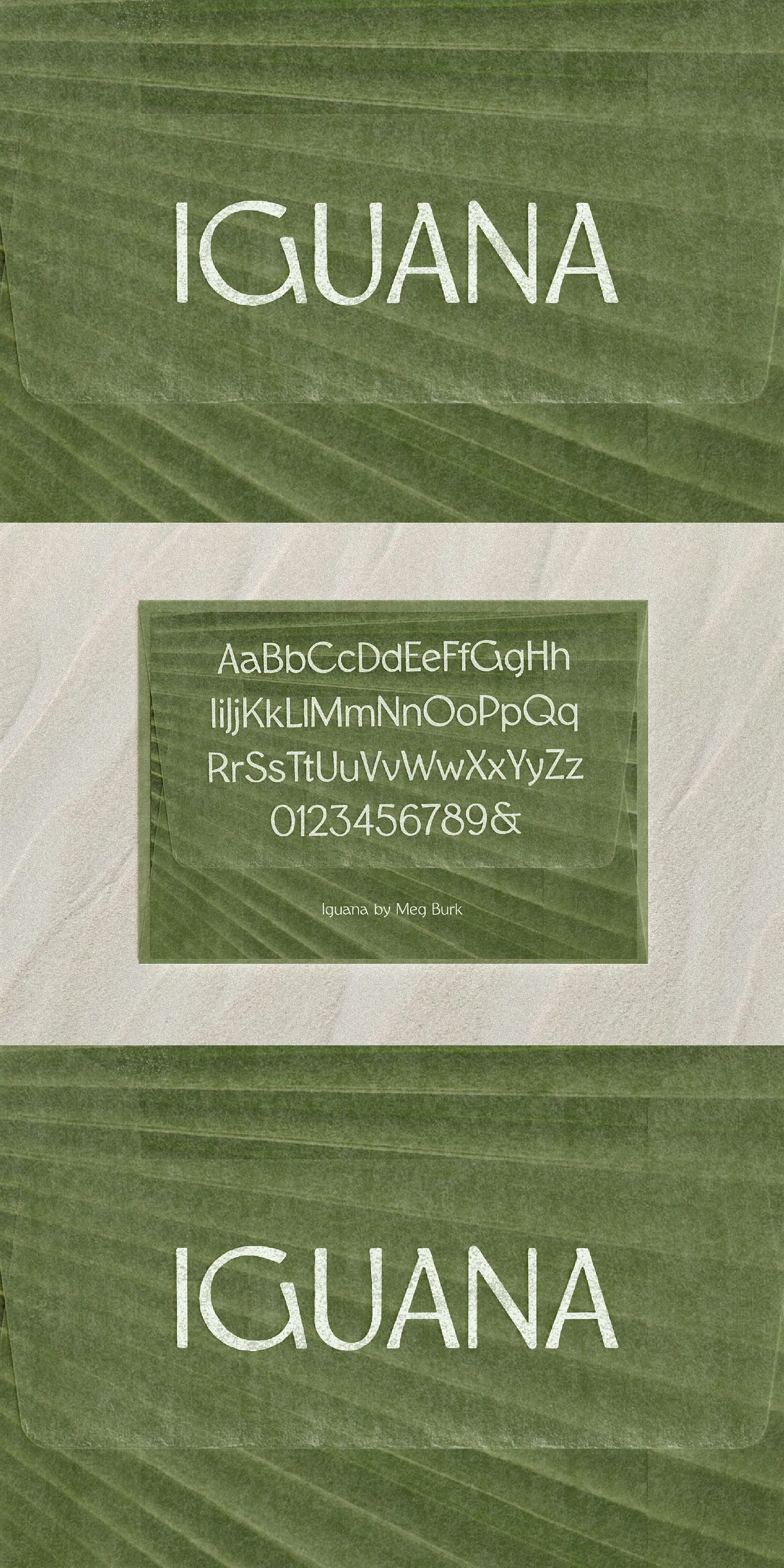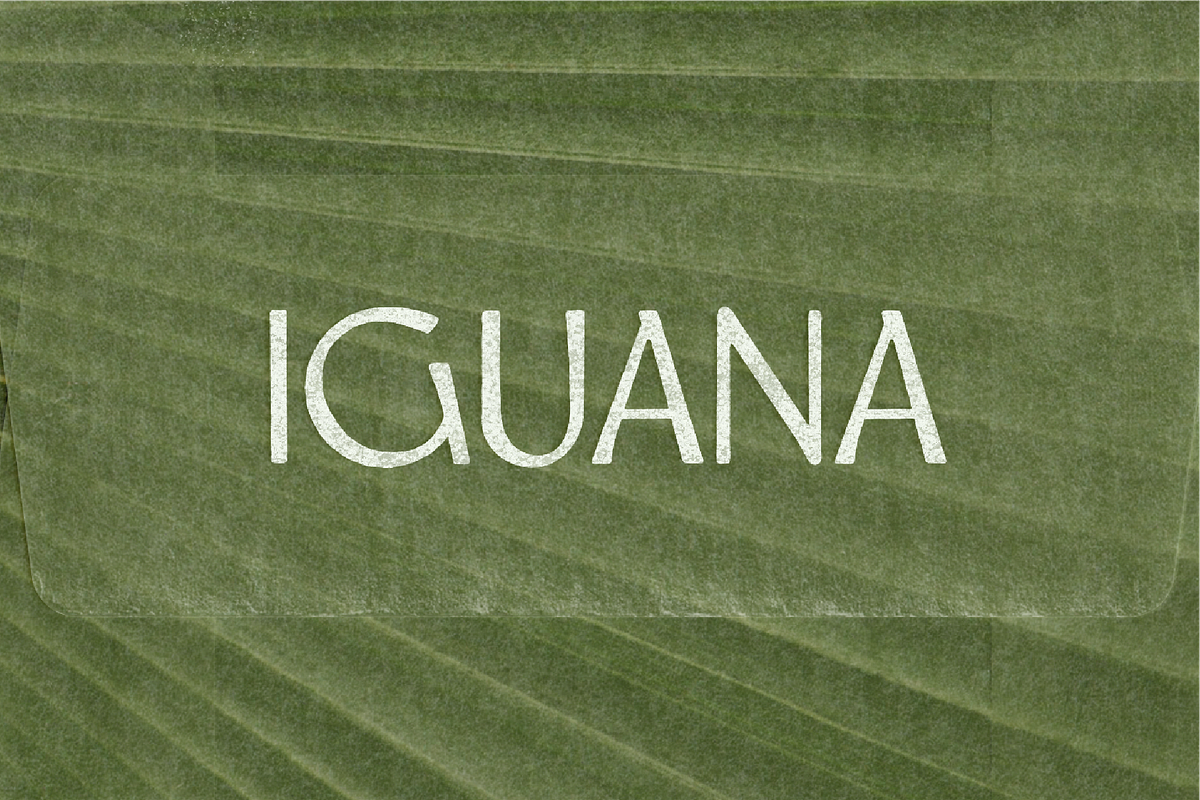
Iguana – Airy & Grounded Font by Meg
Step into a world of mindful modernity with Iguana, a thoughtfully crafted humanist sans-serif typeface designed by Meg Burk and proudly featured at Heatwave Type Foundry. This isn’t just a font — it’s a feeling. A quiet moment of clarity in a noisy world. With its gentle sweeping curves, subtle textural depth, and open, airy forms, Iguana balances softness and strength like a breath held and released. Whether you’re building a brand identity, crafting a luxury menu, or designing for a serene matcha experience, Iguana brings a calm that never feels passive — it feels purposeful.
Designed by Nature, Built for Impact: The Soul of Iguana
Curves That Speak to the Senses
Every stroke in Iguana echoes nature’s wisdom. Inspired by the fluid motion of sea shells, the quiet resilience of desert reptiles, and the delicate textures of natural fibers, each character feels alive. The soft yet defined curves invite the eye to glide across the line, while subtle texture in terminals and serifs gives depth without distraction. The contrast between thick and thin strokes is gentle — not dramatic, but just enough to create rhythm and movement in your text.
Open Forms, Clear Mind
Open apertures and generous spacing give Iguana a spacious, readable presence, even in tight layouts. This isn’t a font that crowds the page — it breathes. Its design philosophy centers on visual ease. Whether used in a short headline, a product name, or a single paragraph on a high-end website, Iguana delivers clarity without compromise. It’s the perfect bridge between minimalist elegance and expressive strength.
Perfect for Brands That Value Authenticity and Aesthetic Harmony
Luxury Hotels & Boutique Retreats
Think of a quiet morning at a cliffside hotel in the Mediterranean — the sun rising over terracotta rooftops, the scent of jasmine in the air. Iguana is the typography that matches that mood. Use it for your welcome signs, guest guides, or social media posts to convey warmth, exclusivity, and natural sophistication. It feels grounded, not flashy — exactly what high-end hospitality brands value.
Coffee & Matcha Brands with a Story
For coffee roasters and matcha artisans, consistency with soul is everything. Iguana’s natural, handcrafted feel reflects the care that goes into every bean and leaf. Use it on packaging, menus, or digital ads to communicate purity, mindfulness, and craftsmanship. The font’s subtle warmth makes even the most minimalist design feel inviting.
Fashion Labels That Stand for Quiet Confidence
For brands that don’t need loud slogans to make a statement, Iguana is your silent partner. Its balanced proportions and timeless appeal suit understated luxury — think linen shirts, organic cotton tees, or leather goods made with intention. The font’s elegance never screams, but it never blends in either.
From Heatwave Type Foundry: Fonts That Tell a Story
Bold Identity, Deep Meaning
At Heatwave, every font is more than a tool — it’s a narrative. Created by Meg Burk, the foundry specializes in typefaces that spark emotion, build brand identity, and elevate content without overshadowing it. Iguana is a hallmark of this mission: subtle, powerful, and deeply connected to the physical world. The shapes aren’t arbitrary. They’re inspired by organic geometry, intentional movement, and the quiet strength of living things.
From Concept to Canvas: Seamless Implementation
Iguana is built for real-world use. Available in multiple weights and styles for responsive design, it integrates smoothly into web projects, print layouts, and branding systems. Its clean OpenType features ensure ligatures, proper spacing, and consistent rendering across devices. Whether you’re designing for Webflow, Figma, or Adobe InDesign, Iguana performs with precision and grace.
Transform Your Visual Language — Start with Iguana
More Than a Font: A Design Philosophy
Iguana doesn’t just appear on the page — it belongs there. It doesn’t fight for attention. It earns it. It whispers confidence. It invites curiosity. When you use Iguana, you’re not choosing a typeface — you’re choosing a brand’s rhythm, its mood, its story.
Use Iguana when you want your message to feel intentional. When you want your brand to feel modern, human, and deeply connected to nature’s quiet power. This is not a font for noise. It’s for presence. For clarity. For meaning.